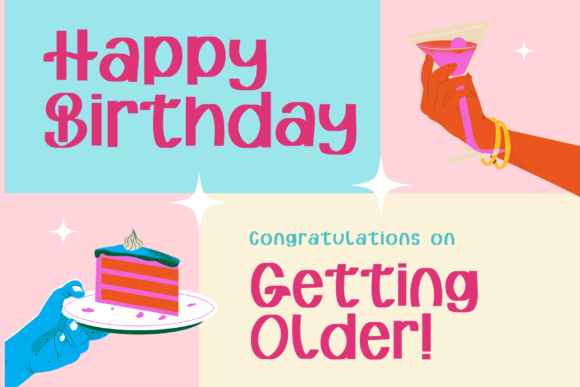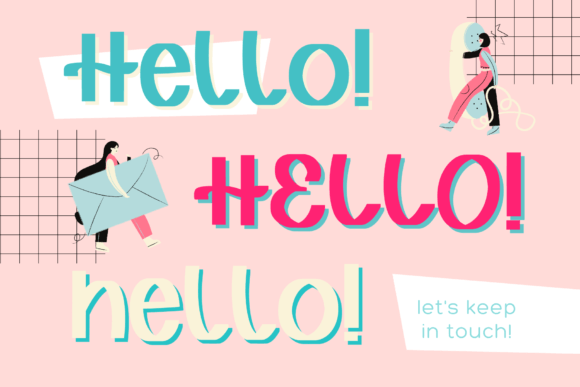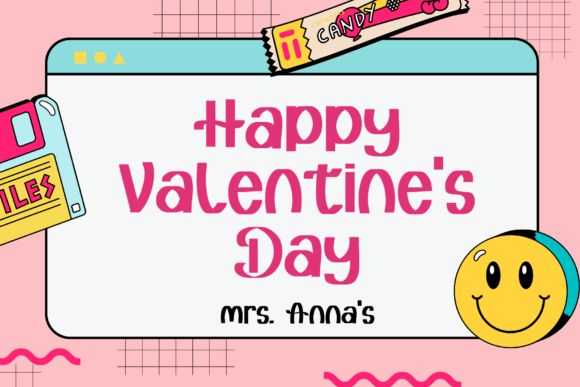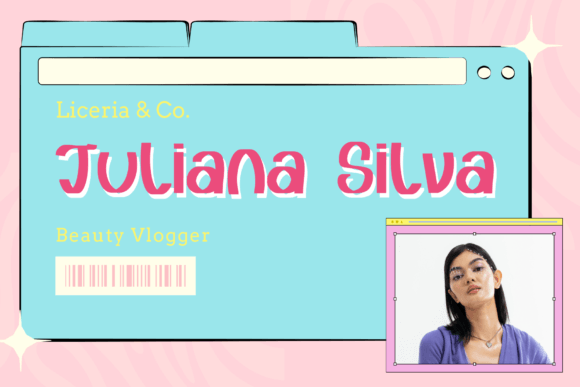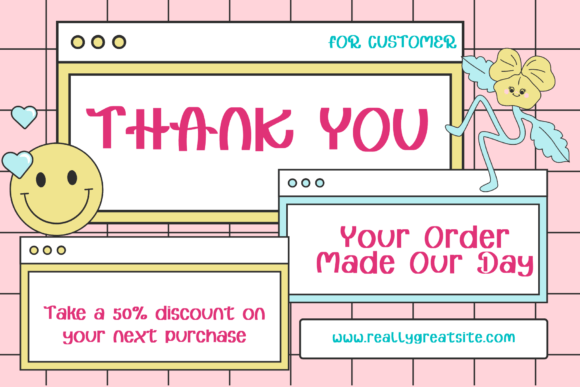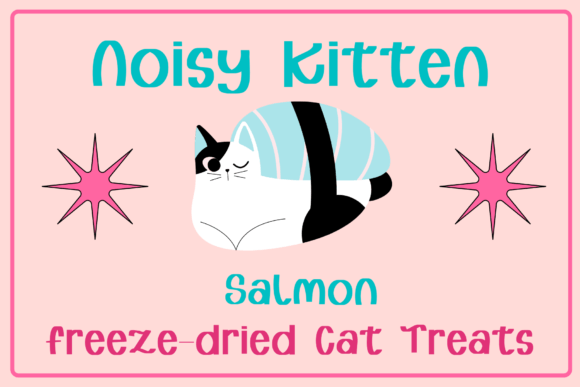
Introducing Gift Love Font: The Ultimate Display Font for Creative Projects
Are you a designer, crafter, or DIY enthusiast looking for a font that can add a touch of playfulness and friendliness to your creations? Look no further than Gift Love Font! This fun and versatile display font is perfect for a wide range of projects, from greeting cards and invitations to social media graphics and branding materials.
What Makes Gift Love Font So Special?
Gift Love Font is a unique and eye-catching display font that is sure to make your creations stand out. Its playful and friendly design makes it perfect for projects that require a personal touch, such as:
- DIY craft projects, such as handmade cards and gift tags
- Party decorations and event signage
Key Features of Gift Love Font
So, what makes Gift Love Font so special? Here are just a few of its key features:
- Playful and friendly design: Gift Love Font has a fun and approachable design that is sure to bring a smile to anyone’s face.
- Versatile: This font can be used for a wide range of projects, from formal to informal, and can be paired with a variety of other fonts and design elements.
- Easy to read: Despite its playful design, Gift Love Font is easy to read, even at smaller sizes.
- High-quality: This font is designed to be high-quality and crisp, making it perfect for printing and digital use.
How to Use Gift Love Font in Your Projects
Using Gift Love Font in your projects is easy! Here are a few tips to get you started:
- Pair it with other fonts: Gift Love Font pairs well with a variety of other fonts, including serif and sans-serif fonts.
- Use it as a headline font: Gift Love Font is perfect for use as a headline font, adding a touch of playfulness and friendliness to your creations.
Benefits of Using Gift Love Font
So, why should you choose Gift Love Font for your projects? Here are just a few benefits of using this amazing display font:
- Adds a personal touch: Gift Love Font adds a personal touch to your creations, making them feel more friendly and approachable.
- Stand out from the crowd: With its unique and eye-catching design, Gift Love Font is sure to make your creations stand out from the crowd.
- Perfect for creative projects: Gift Love Font is perfect for creative projects, such as DIY crafts, social media graphics, and branding materials.